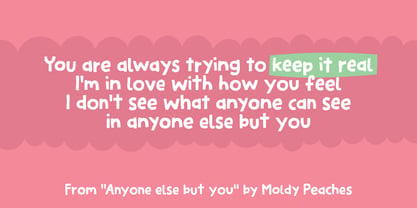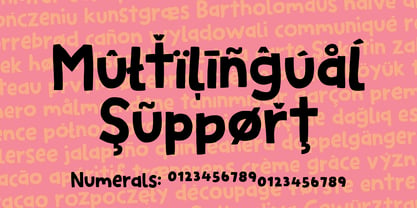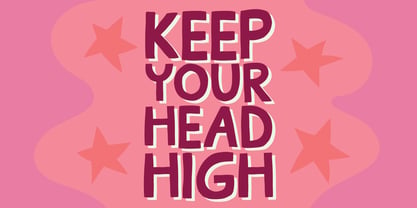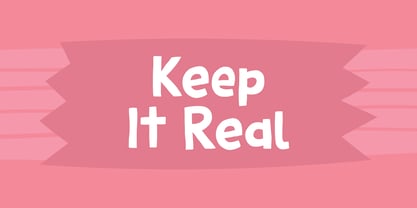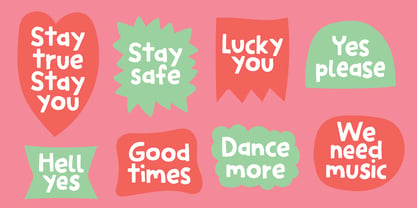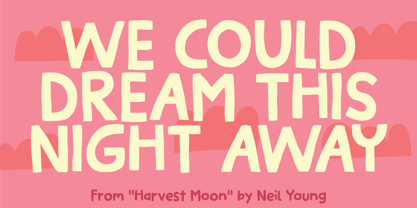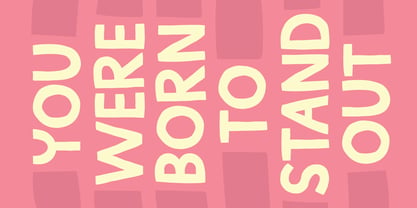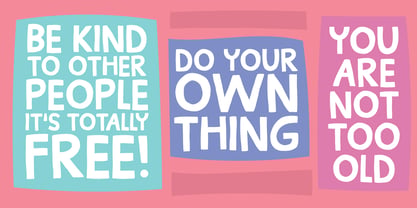
Keep It Real
Say hello to “Keep It Real” - my handmade sans font that makes your designs deserve some of your famous punchlines!
Best use would be quotes, invitations, greeting cards, packaging, products for babies and kids, clothing, crafting … well, you got the idea - “Keep It Real” is fun, easy going and super duper playful!
Features:
Contextual Alternates is a super nice feature. In this case I have added 3 versions of each lowercase letter, and they automatically changes as you type. Or, you can manually choose the letter(s) that you wish. This is a great way to avoid obvious repeating letters, making your text look more vivid, vibrant and organic.
I have included the Standard Ligatures - the well-known ligatures such as ff, fi, fl, ffi, ffl
Subscript and Superscript
Normally typedesigners resizes the numbers to make Subscript and Superscript. I do that on occasions as well, but in this case I have drawn the numbers, instead of resizing them. That way they appear more natural, organic and unique.
Fractions are nice having available. You skip the work of resizing the numbers yourself, because I have done all the work for you!
Multilingual support
This font comes with extensive multilingual support, and supports loads of different languages.